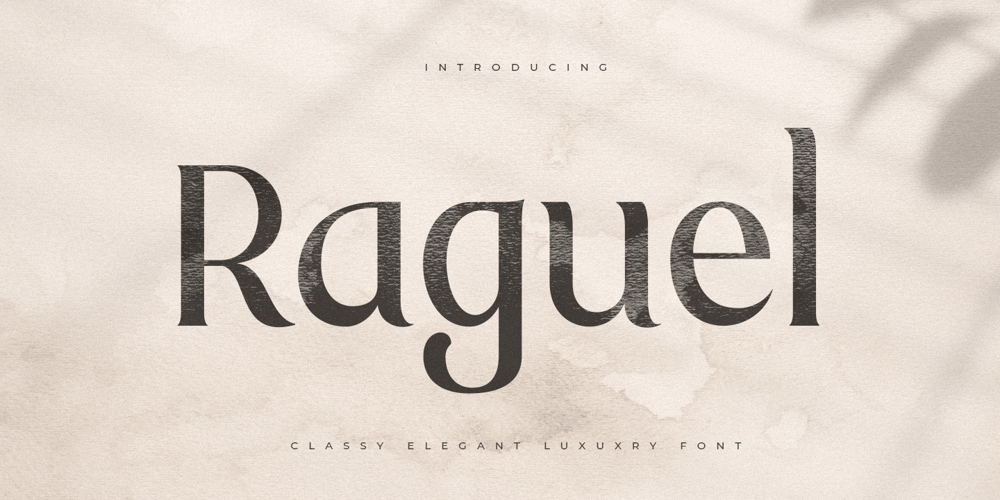
Raguel Font Family was designed by Zamroni Hamzah and published by Sensatype Studio. Raguel contains 1 styles and family package options. Raguel is Classy Elegant Luxury Font with Sharp shape make your design look classy and elegantA new Serif Font that we created special for Headline, Title and more stand out typography needs, we crafted for unique style and modern feels so enjoy to create any project that will show your main idea out.Raguel is Classy Elegant Luxury Font ready with: Any options to get creative variations Preview as a inspirations that you can do with Raguel font Ready with All characters Wish you enjoy our font. ๐